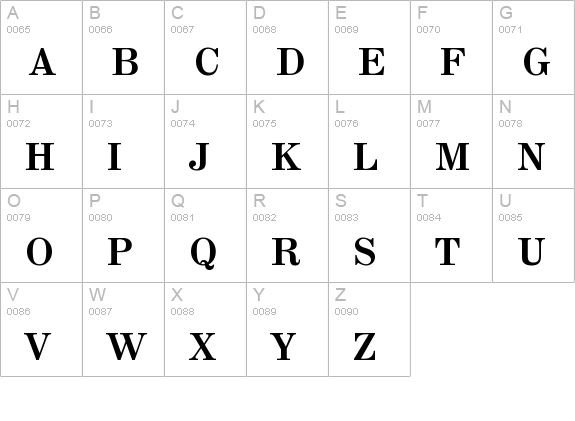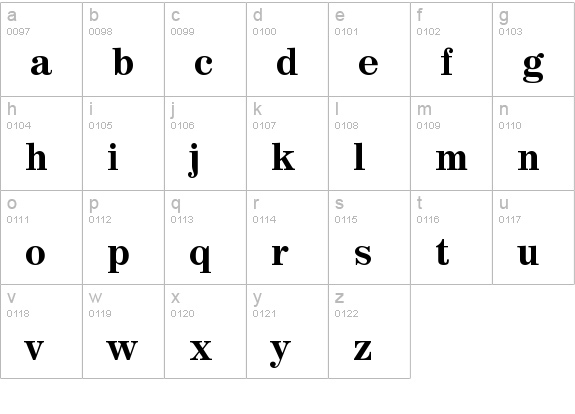
Madeira-Medium Font Details
Madeira-Medium is a balanced, medium-weight variant in the Madeira typeface family \xE2\x80\x94 well suited to sub-headlines, navigation, and balanced editorial work.
Madeira-Medium font is a versatile and elegant typeface that strikes the perfect balance between modernity and sophistication. With its clean lines and subtle curves, this font exudes a sense of timeless beauty and refinement. Whether used for headlines, body text, or any other design project, Madeira-Medium adds a touch of class and professionalism. What makes Madeira-Medium even more appealing is that it is available for free download at FontsMarket.com. This means that you can easily access this high-quality font without any cost, making it a great choice for designers, creatives, and anyone looking to enhance their projects with a touch of style. With its seamless readability and stylish aesthetic, Madeira-Medium font is sure to elevate your designs to the next level. Download it today and discover the endless possibilities it offers for your creative endeavors.